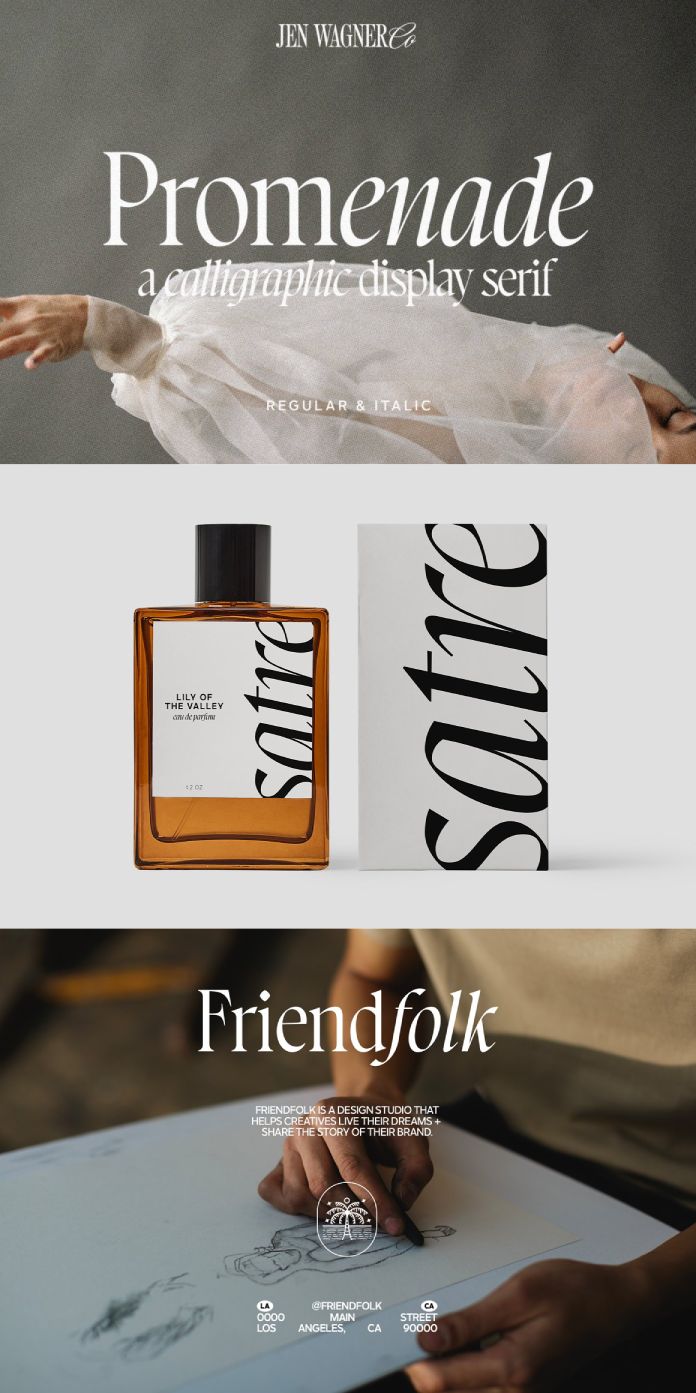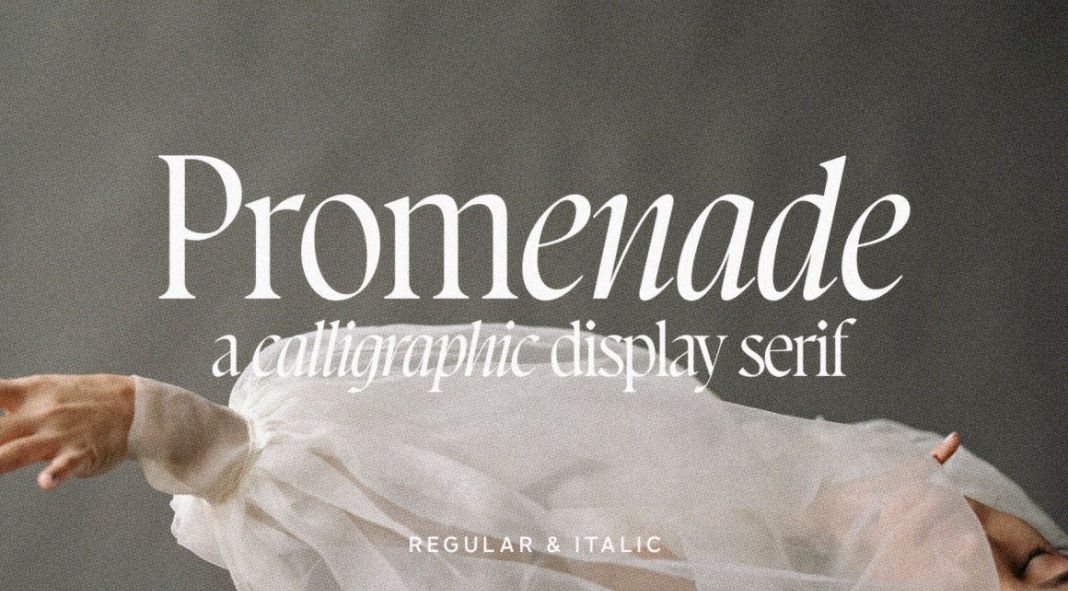
Take a look at Promenade, a carefully designed calligraphic serif font.
Introducing Promenade, a pristine calligraphic serif that was crafted with love and care, starting on paper with an ordinary flat nib pen. This font radiates beauty; crisp and delicate, yet bold enough to be the center of attention. Jen Wagner couldn’t get over its graceful flow as she created it, particularly in italics form – Promenade exudes class whilst confidently embracing those beloved Doc Martens!
When it comes to Promenade, its letter spacing is designed for clear legibility and balanced aesthetics. As such, Jen suggests that if you’re aiming for the look of many logos out there, setting a tighter letter spacing at -20 to -40 would be ideal.
Jen Wagner Co.’s Promenade font is a stylish serif font that can be used to create stunning logos, posters, banners, titles, and headlines. It features classic letterforms with sharp edges that add an elegant touch of class to any design.